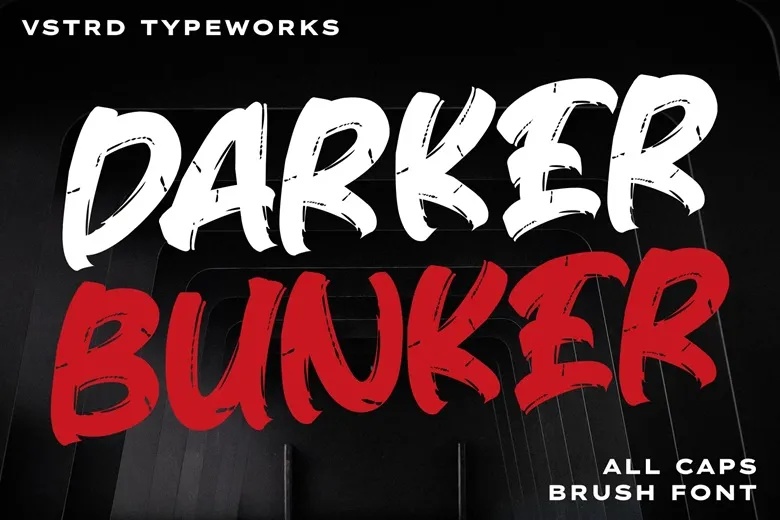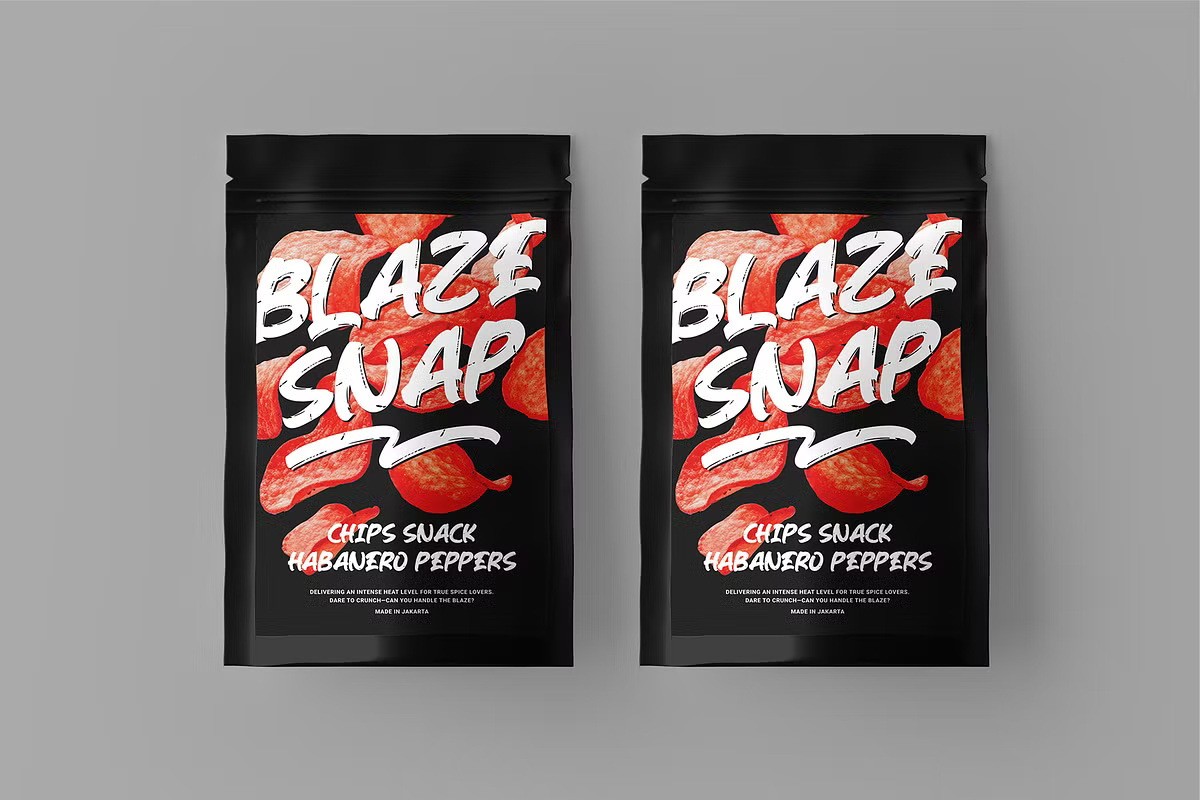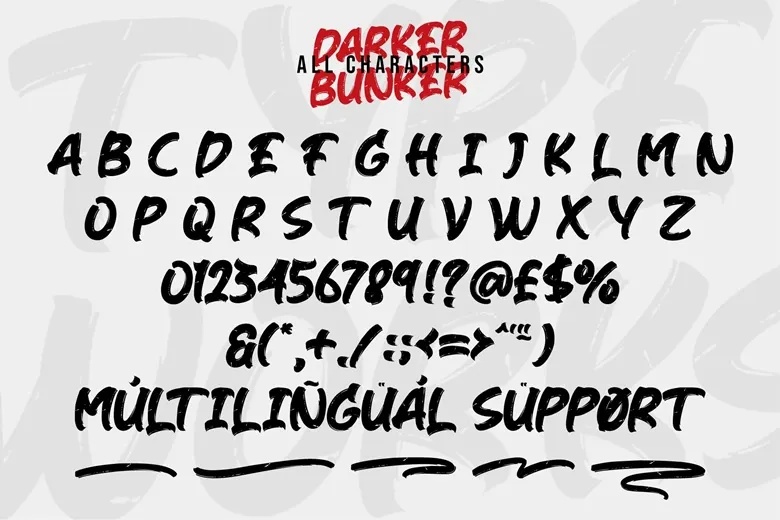
Add some attitude to your design with Darker Bunker – a realistic brush font crafted from authentic natural hand brush strokes. This font delivers an organic vibe, making it an ideal choice for projects that need to convey a rebellious spirit. Whether you’re designing logos, campaign T-shirts, or promotions, Darker Bunker is perfect for non-alcoholic beverages, videos, titles, packaging, quotes, posters, flyers, and eye-catching text overlays. With its handmade, raw, urban aesthetic, this font brings an edgy, gritty feel to any creative endeavor.
Darker Bunker Brush Script Font